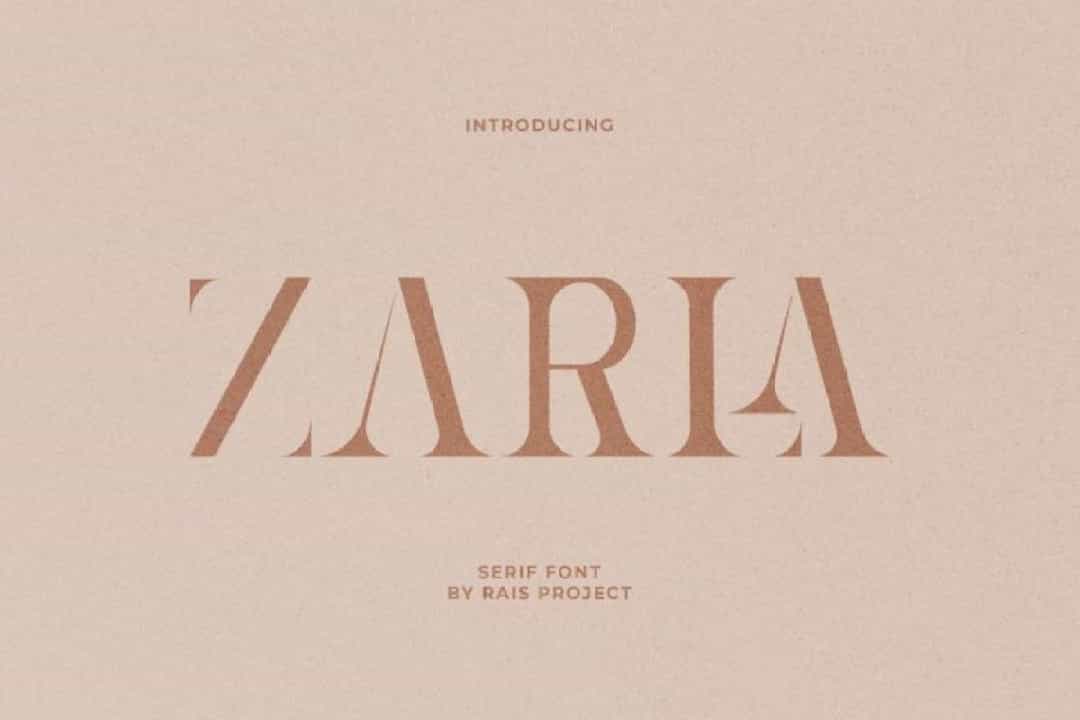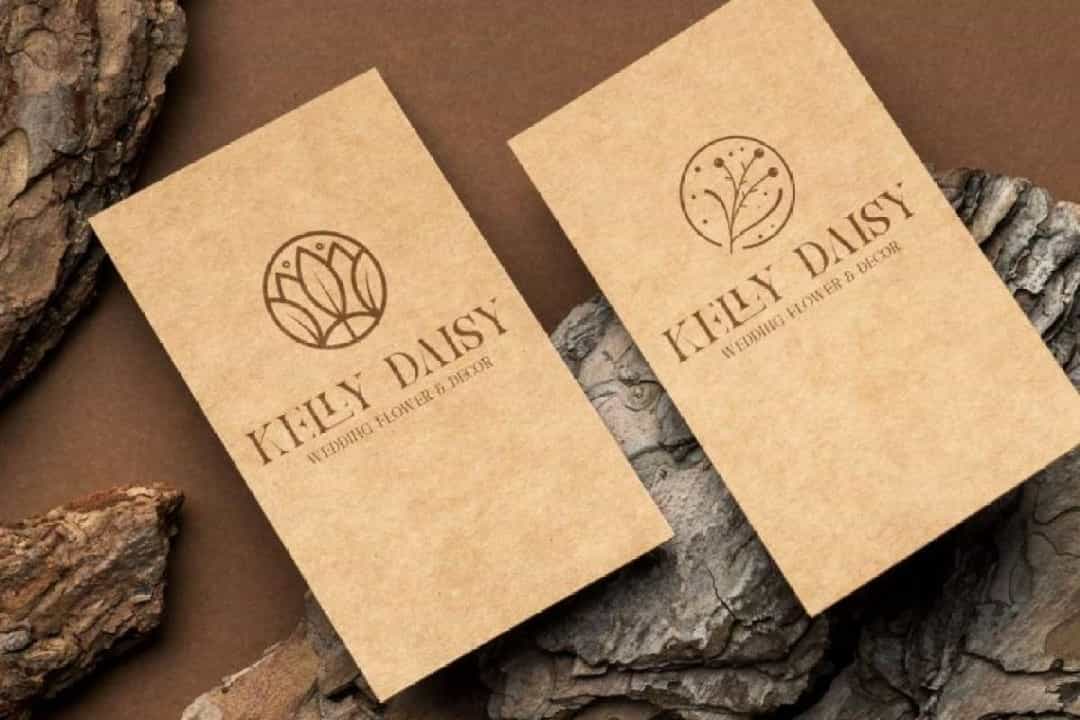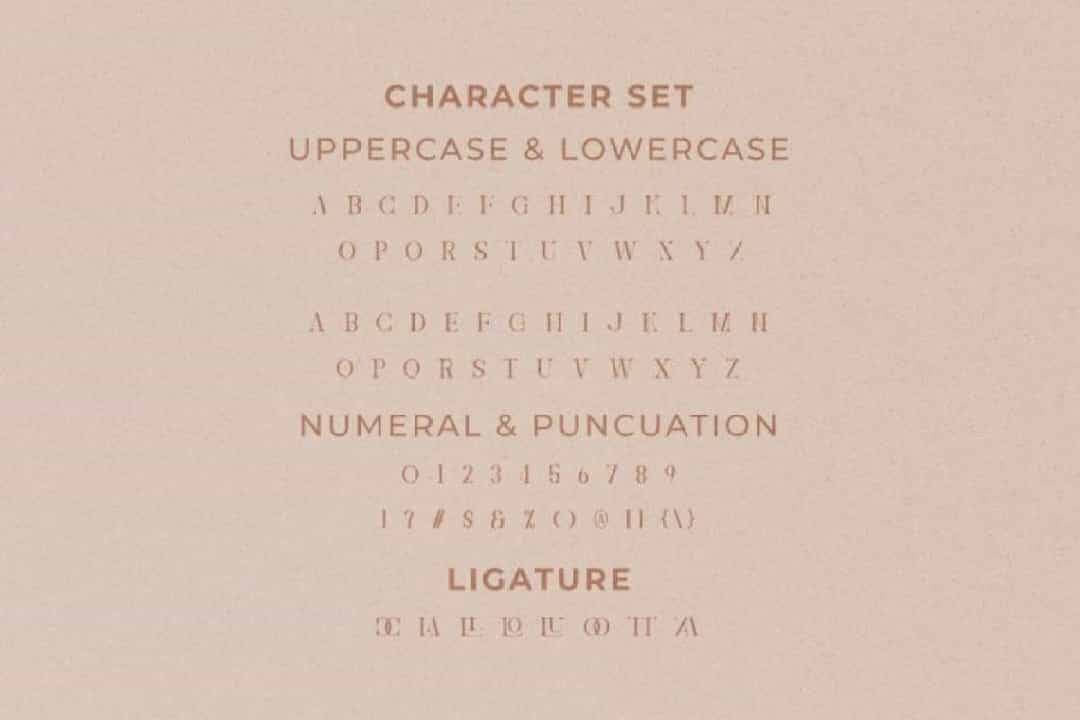
Discover Zarla Font, part of the Serif Display collection—a versatile and unique font perfect for adding a personal touch to your projects. Download it for free and enjoy crafting designs with style, from invitations to social media posts. This font is available exclusively for personal use, giving you the freedom to create without limits. Unlock your creativity with Zarla Font today!
Zarla Font is a simple minimalist display Serif font created by RaisProject, available for sale. Featuring sleek modern elegance, this font was handcrafted specifically to meet your specific needs: headlines, promotions events branding magazines advertising signs invitations stationery social media posts labels and any project that requires distinctive design elements.